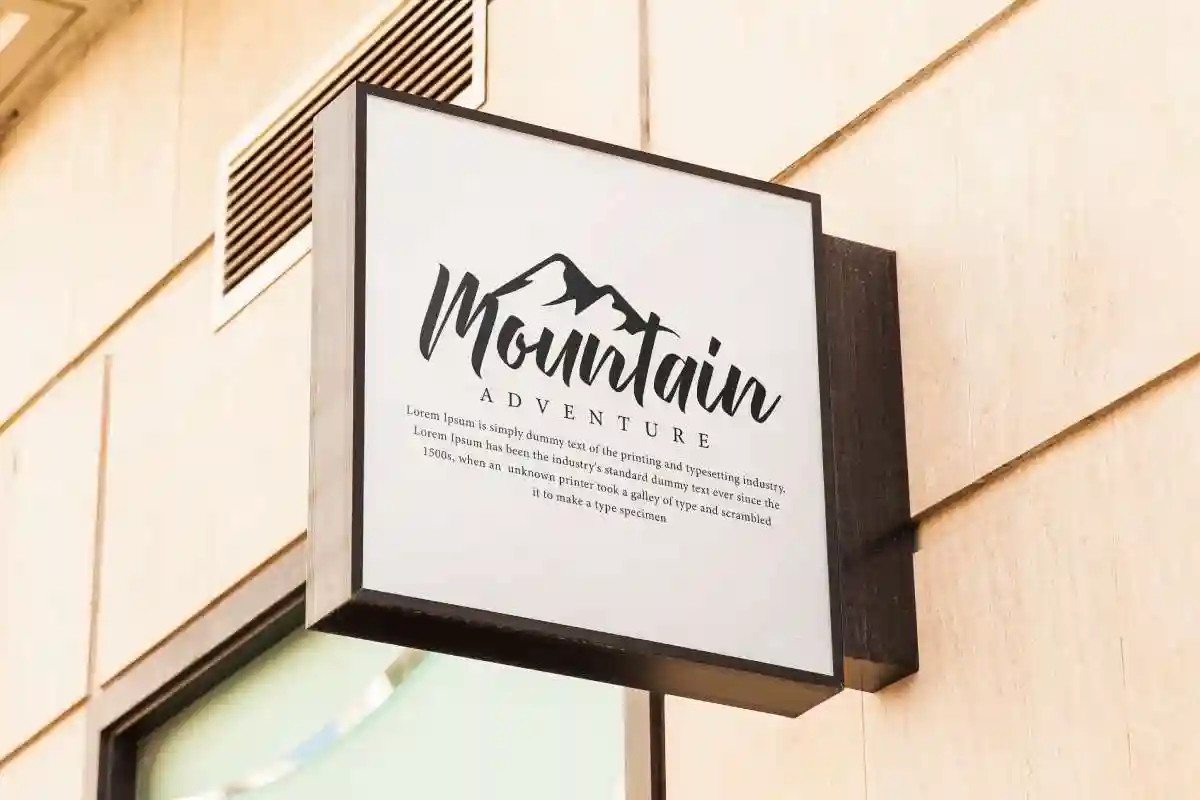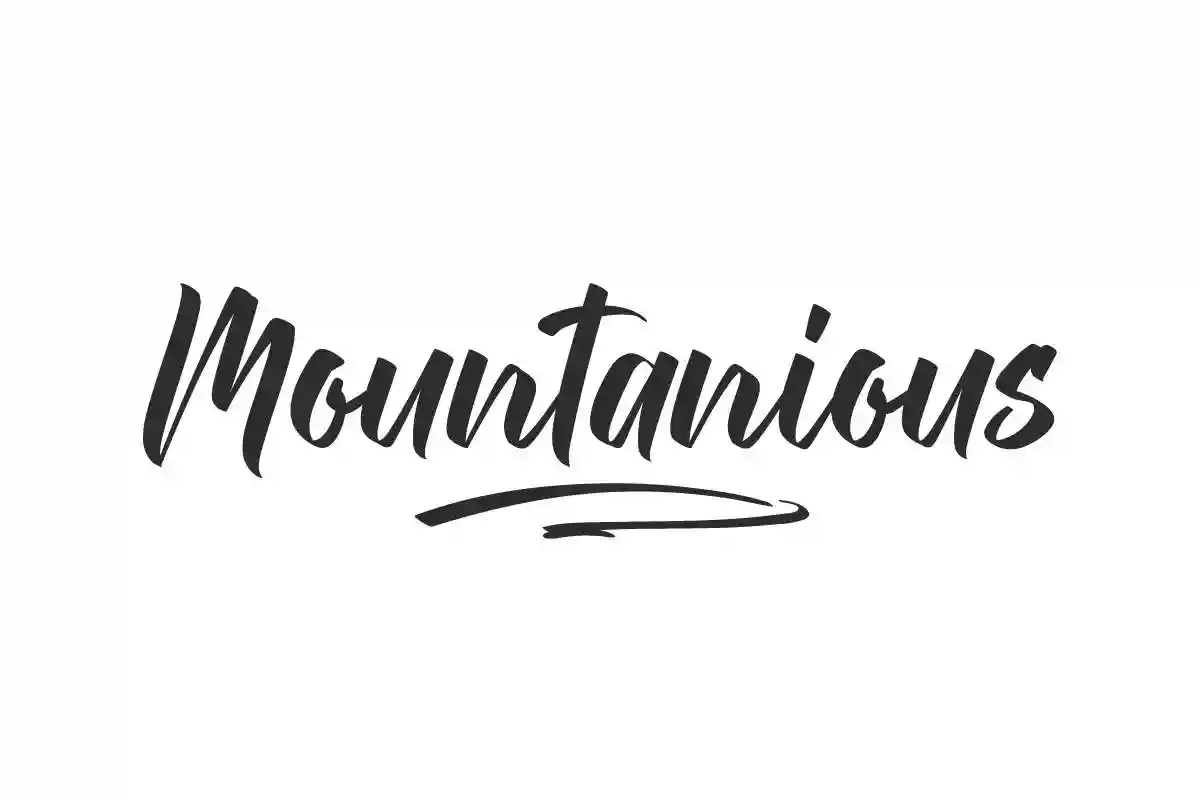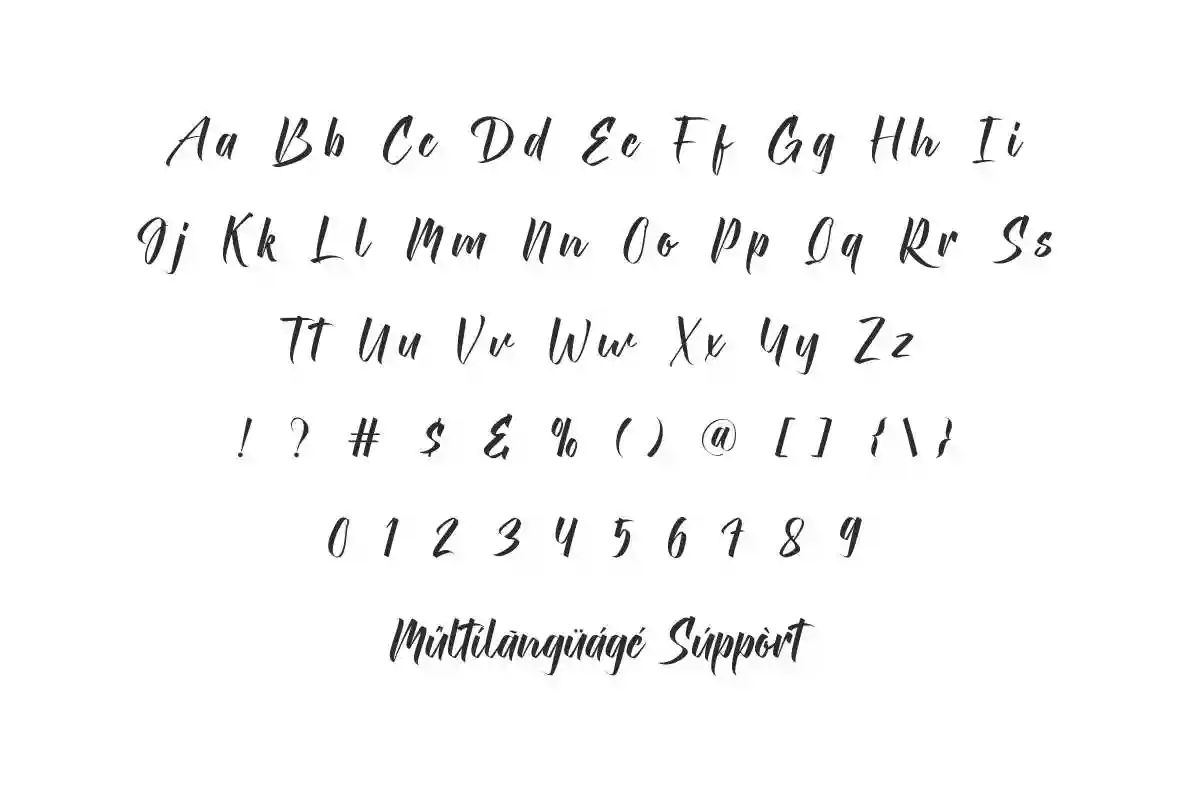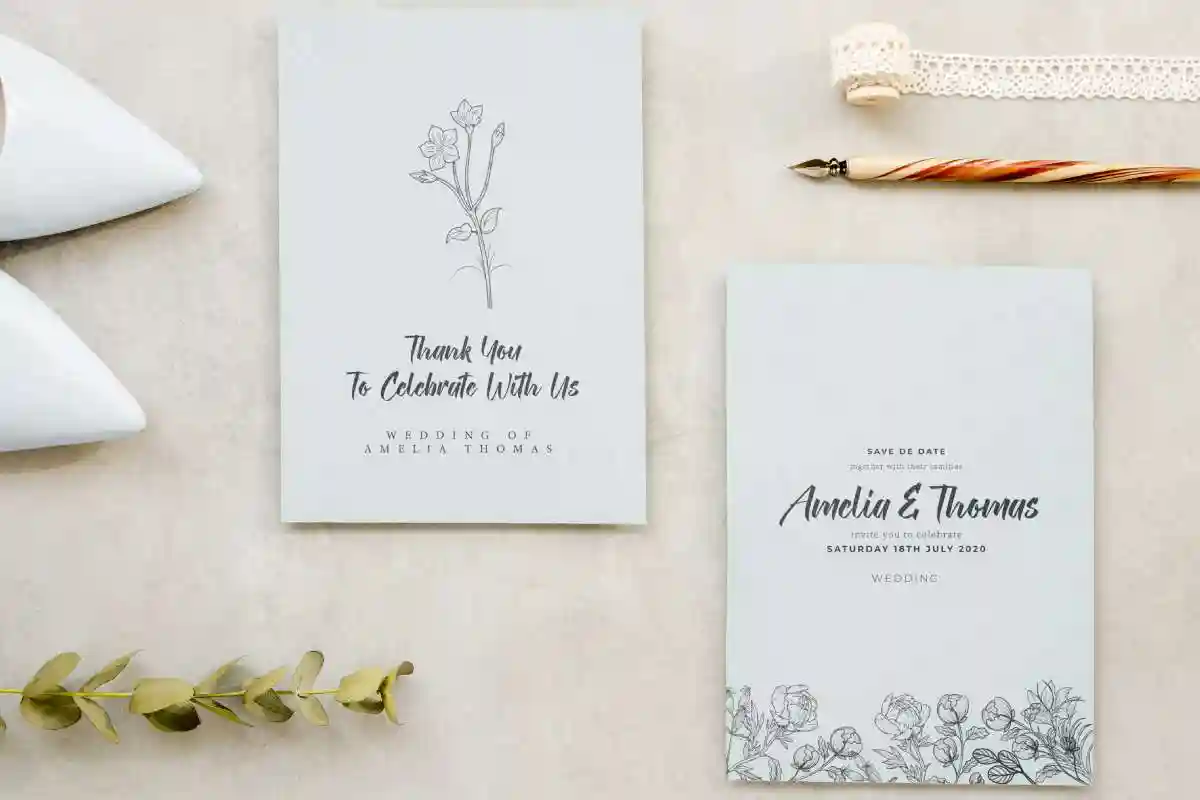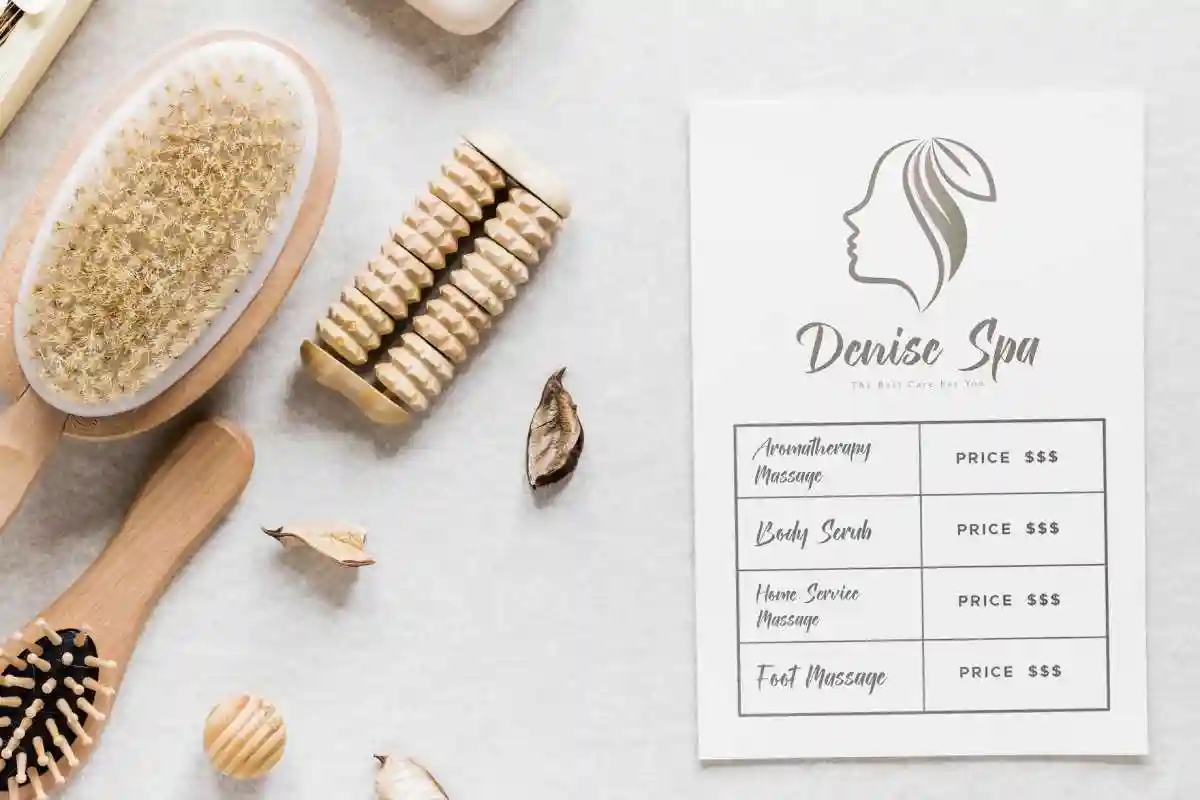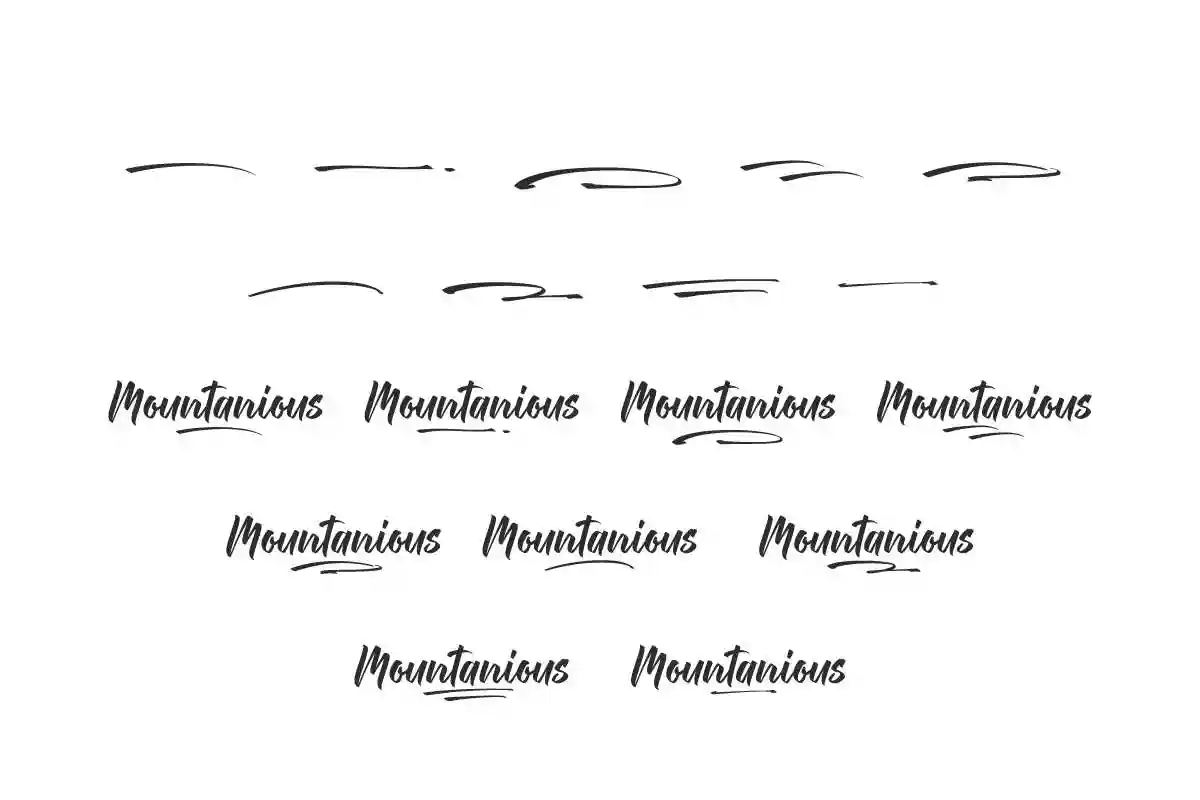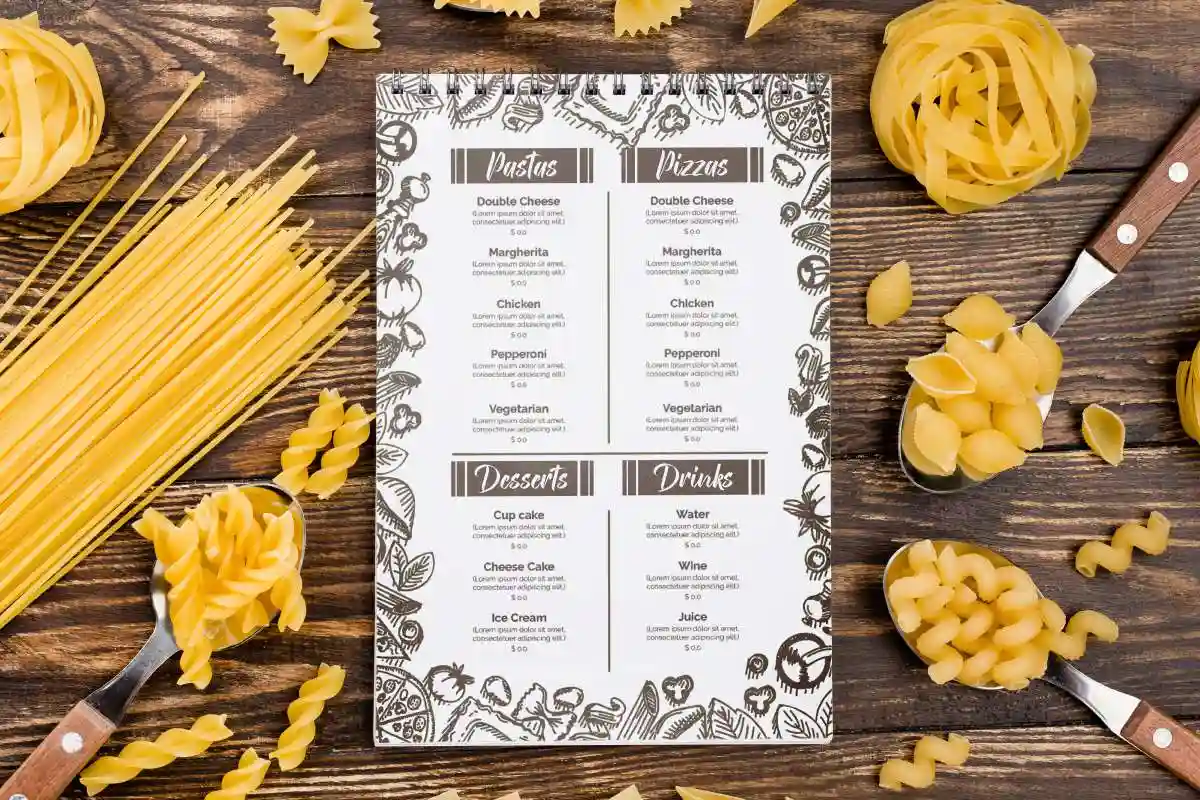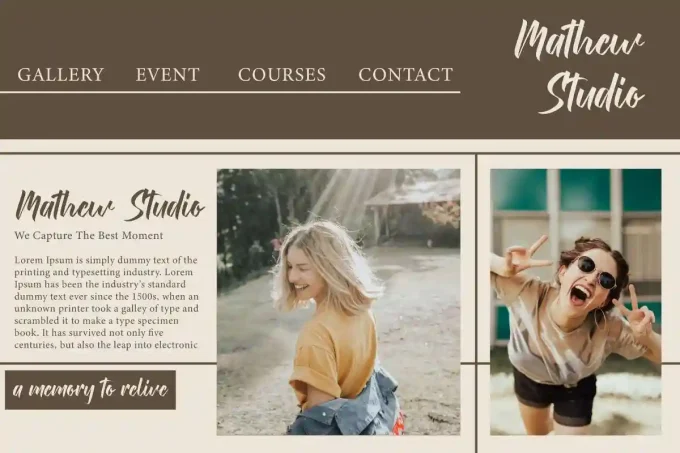
Mountanious Font is a beautiful stylish calligraphy, specially created by NihStudio. Use this font for boutique, brochure, invitations, magazine catalog, menu, travel, etc.
Mountanious Font is a beautiful script font with calligraphy style. This font is specially made for those of you who want to add the essence of beauty to every design made. Use this font for your creative projects including : brand logo, brochure, catalog, headline, invitations, menu, signage, and more!
Mountanious Font will be great for your business brand, covering industry : boutique, event or wedding organizer, hotel, photography, restaurant, spa salon, travel agent, etc. This charming font works well when paired with other fonts and is still easy to read.
Mountanious Font comes with a full set of Uppercase and Lowercase Basic Characters, Number, Punctuation, Symbol, Swoosh, and also supports multilingual characters. Ready to use both on Windows machine or Mac with simple installations. It’s tested to work well in the Adobe Apps (Illustrator, Adobe InDesign, Adobe Photoshop) CorelDraw, and others. PUA Encode Characters means you can access all the glyphs and swashes with ease.